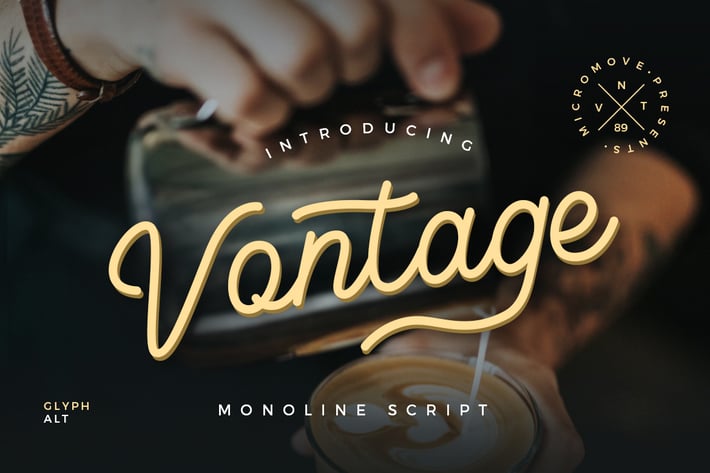
Vontage - Monoline Typeface
We Provide You one of the best Stylish Hand Written Script. Best match for logos, header, Titles, Prints & other Creative process possibilities.
Create a Extraordinary Typography / lettering results by using Vontage Handmade Font Script